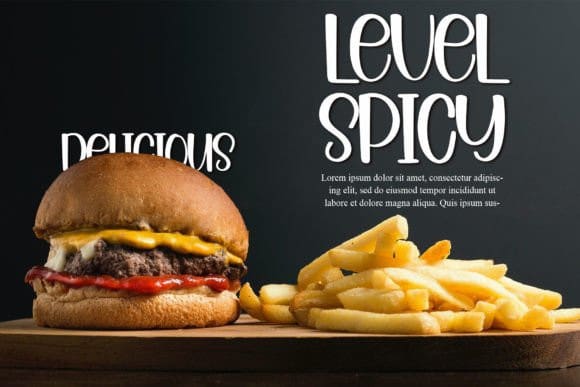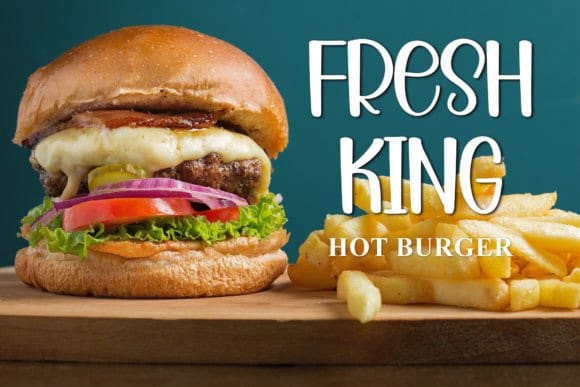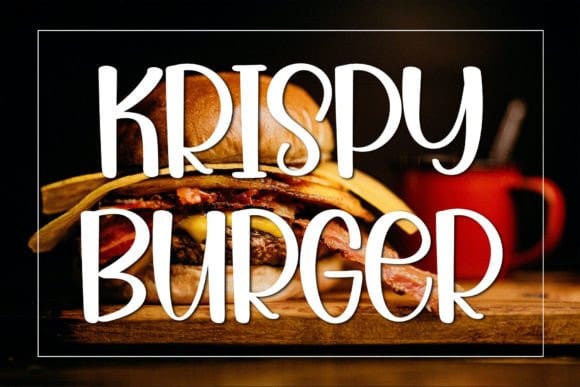
Krispy Burger Font
Krispy Burger Font is a gorgeous and bold display font. Simple and easy to use, this font will be very beautiful if you mix it with your various craft designs.